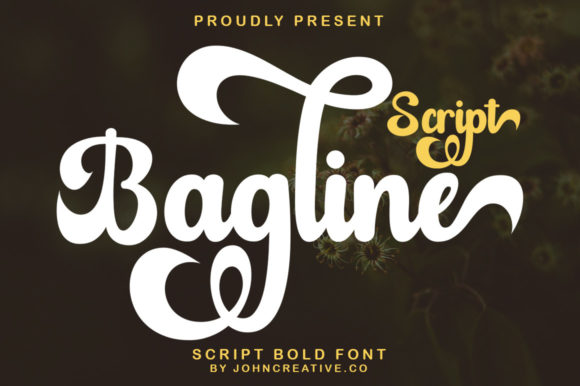
Introducing Bagline Script Font - the perfect blend of retro styling, sophistication, and charm. Created by mr.johncreative.co, this handwritten script font is ideal for anyone looking to deliver a message with confidence and authenticity.
With its unique and eye-catching design, Bagline Script Font is perfect for a wide range of crafting ideas. Whether you're creating cards, branding materials, labels, or anything in between, this font will help your project stand out from the crowd.
One of the great things about Bagline Script Font is that it is PUA encoded, which means that accessing all glyphs and swashes is a breeze. With so many options available, you can really let your creativity shine and create truly one-of-a-kind designs.
Not only is Bagline Script Font visually stunning, but it also has the power to evoke emotion and create a connection with your audience. Its retro style and charming elegance make it the perfect choice for those looking to add a touch of nostalgia to their projects.